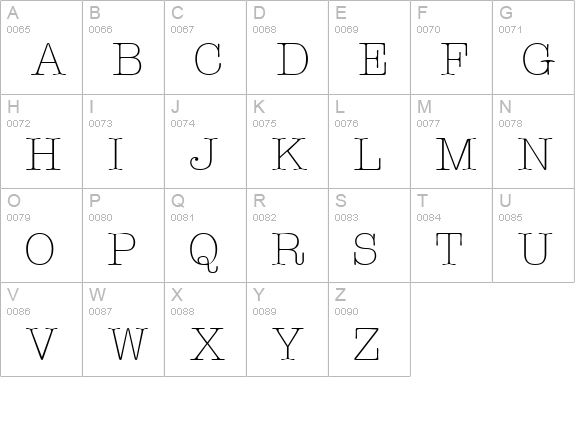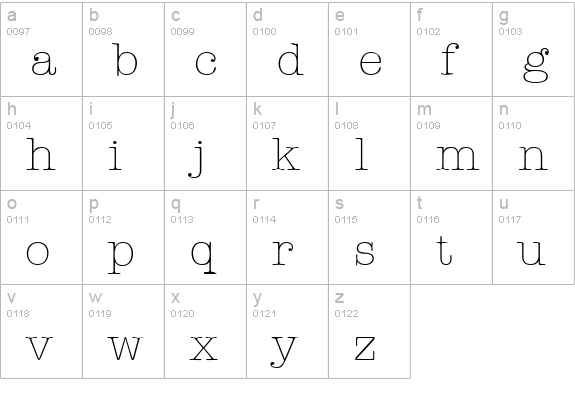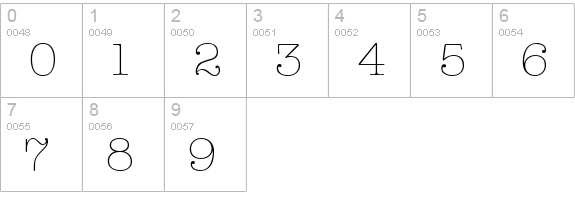
American Regular Font Details
American Regular is the standard, neutral variant in the American typeface family \xE2\x80\x94 well suited to general body text, paragraphs, and standard typographic work.
American Regular font is a timeless and versatile typeface that exudes a classic American style. With its clean lines and balanced proportions, this font is perfect for a wide range of design projects, including branding, editorial design, and more. What makes American Regular font even more appealing is that it is available for free download at FontsMarket.com. This means that you can easily access this high-quality font without any cost, making it a valuable asset for any designer or creative professional. Whether you're looking to add a touch of Americana to your designs or simply want a reliable and easy-to-read font, American Regular is a fantastic choice that won't break the bank. Download it today and add a touch of timeless elegance to your projects.